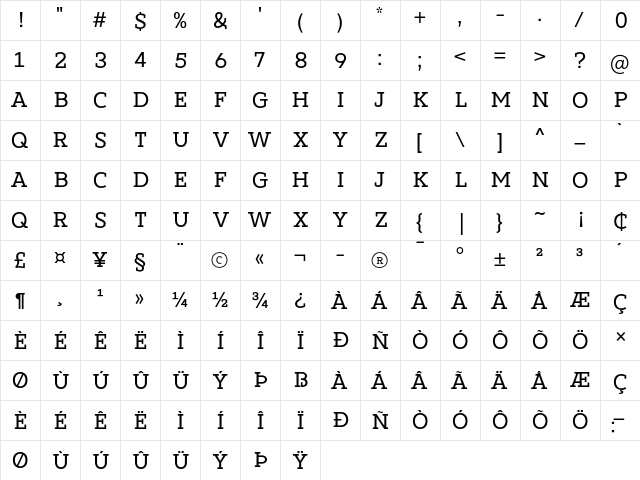
Dearly loved Slab One Regular
| Foundry | 7NTypes |
| Designer | Situjuh Nazara |
Design Context for Dearly loved Slab One Typeface
Dearly loved Slab One combines the readability of serif typography with the visual weight of a slab construction, resulting in a typeface that feels both authoritative and approachable.
Works well in editorial design, news publishing, impactful branding, and poster typography.
Pro Tip: Try Dearly loved Slab One set tight in headlines for a classic editorial feel. Its slab serifs create strong horizontal rhythm that anchors a page layout.